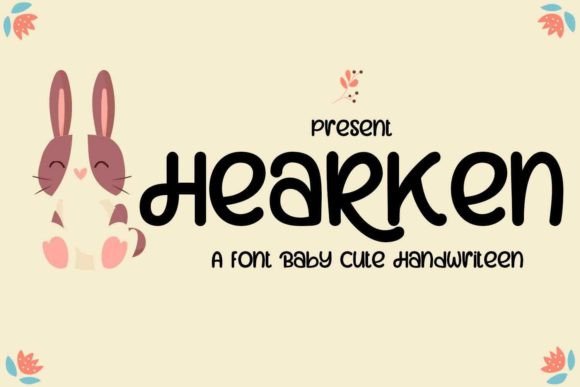
Hearken: A Cheerful Font for Creative Expression
In the world of typography, fonts serve as more than just visual elementsāthey are tools that shape the tone and message of any design. One such font that stands out for its unique charm is Hearken. With its cute and fun appearance, Hearken brings a sense of joy and simplicity to any project it graces. Whether used in invitations, branding, or childrenās books, this display font has a way of making designs feel more approachable and engaging.
What makes Hearken particularly special is its ability to balance playfulness with clarity. The rounded edges and soft curves of each letter contribute to a friendly aesthetic that feels both modern and nostalgic. This duality allows the font to be versatile enough for a wide range of applications while maintaining its distinct personality. For designers looking to convey warmth and positivity, Hearken offers an ideal solution without sacrificing readability.
The Characteristics of Hearken
Hearkenās design is rooted in simplicity, yet it manages to stand out through its thoughtful details. Each character is crafted with a focus on legibility, ensuring that even at smaller sizes, the font remains clear and easy to read. This makes it suitable not only for large-scale projects like logos and banners but also for more intimate designs such as greeting cards or book covers.
The fontās structure includes subtle variations in stroke weight that add depth and dimension to the text. These nuances give Hearken a handcrafted feel, which can be especially appealing for projects that aim to evoke a sense of authenticity. Additionally, the fontās open counters and generous spacing make it highly readable, even when used in dense blocks of text.
Another notable feature of Hearken is its adaptability. While it is primarily designed as a display font, its clean lines and balanced proportions allow it to function effectively in a variety of contexts. This flexibility makes it a valuable asset for designers who want to maintain a cohesive visual identity across different mediums and formats.
Applications of Hearken in Design
One of the most common uses of Hearken is in invitation design. Whether for a wedding, birthday party, or corporate event, the font adds a touch of whimsy that can elevate the overall aesthetic of the invitation. Its cheerful appearance helps set a positive tone, making it an excellent choice for events that aim to create a welcoming atmosphere.
Beyond invitations, Hearken is also widely used in branding and logo design. Companies that want to communicate a friendly and approachable image often turn to this font to reflect their values visually. Its playful yet professional look makes it suitable for a broad range of industries, from food and beverage to education and entertainment.
In childrenās literature, Hearken proves to be a powerful tool for engaging young readers. The fontās bright and expressive style can capture the imagination of children, making it ideal for titles, captions, and illustrations. Educators and authors alike appreciate how it enhances the visual appeal of books while maintaining readability for younger audiences.
For crafters and hobbyists, Hearken offers a creative outlet that encourages personal expression. Whether used in coloring pages, DIY projects, or handmade cards, the font adds a unique flair that can make any creation feel more special. Its versatility allows users to experiment with different color schemes and layouts, making it a favorite among those who enjoy hands-on design work.
Advantages of Using Hearken
One of the key advantages of Hearken is its ability to convey emotion through typography. In a digital age where visual communication plays a crucial role, the right font can significantly impact how a message is received. Hearkenās cheerful appearance helps create a positive emotional response, making it an effective choice for projects that aim to inspire or uplift.
Another benefit of using Hearken is its ease of integration into existing design workflows. Many designers find that the font works well with other typefaces, allowing for seamless combinations that enhance the overall composition. This compatibility makes it a practical option for projects that require a mix of different fonts to achieve a balanced look.
Additionally, Hearkenās availability in multiple weights and styles provides designers with greater flexibility. Whether they need a bold version for headlines or a lighter variant for body text, the font adapts to different needs without losing its core identity. This adaptability ensures that Hearken can be used effectively in a wide range of design scenarios.
Considerations When Using Hearken
While Hearken is a versatile and appealing font, it is important to consider its limitations. Due to its decorative nature, it may not be the best choice for long-form text or formal documents where a more neutral typeface would be more appropriate. Designers should also be mindful of how the font appears in different sizes and contexts, as its characteristics may change depending on the medium.
Conclusion
Hearken is more than just a fontāit is a tool that empowers designers to express creativity with a touch of joy. Its combination of simplicity, charm, and functionality makes it a valuable asset in various design fields. By understanding its characteristics, applications, and considerations, designers can make informed decisions about how to best utilize this font in their work. Whether for personal projects or professional endeavors, Hearken offers a unique way to bring a sense of fun and warmth to any design.